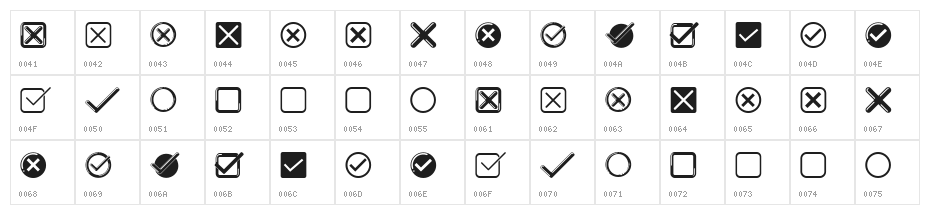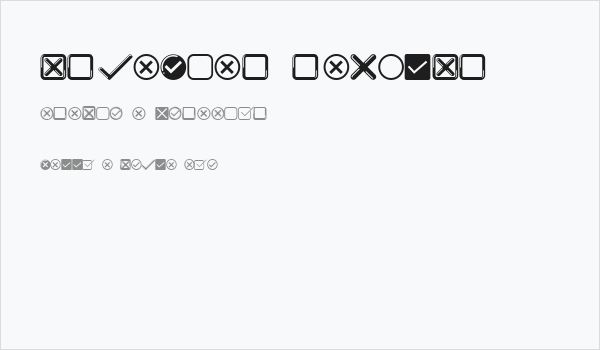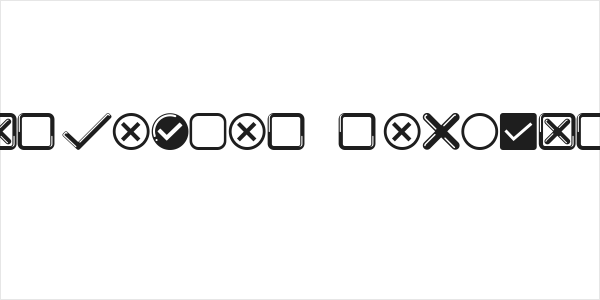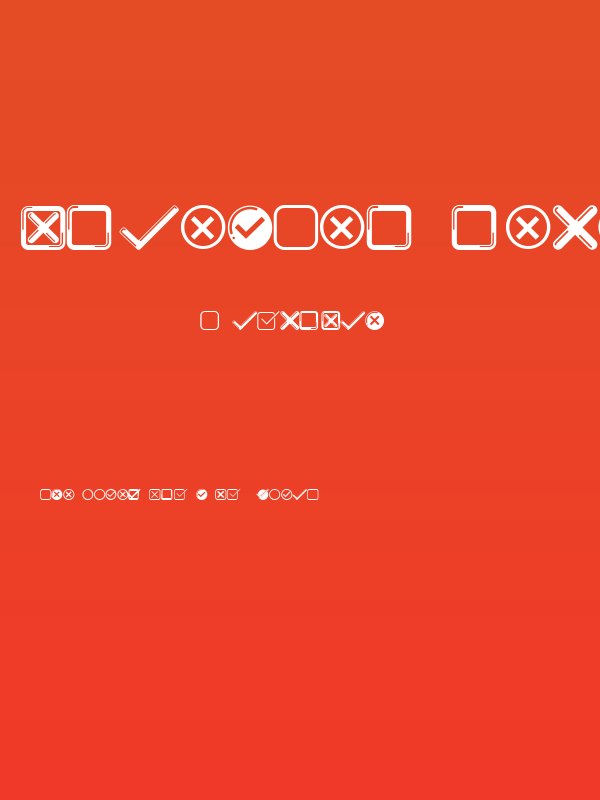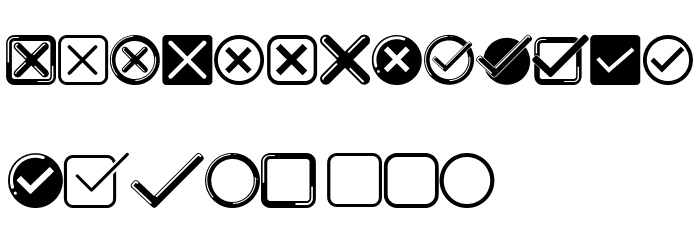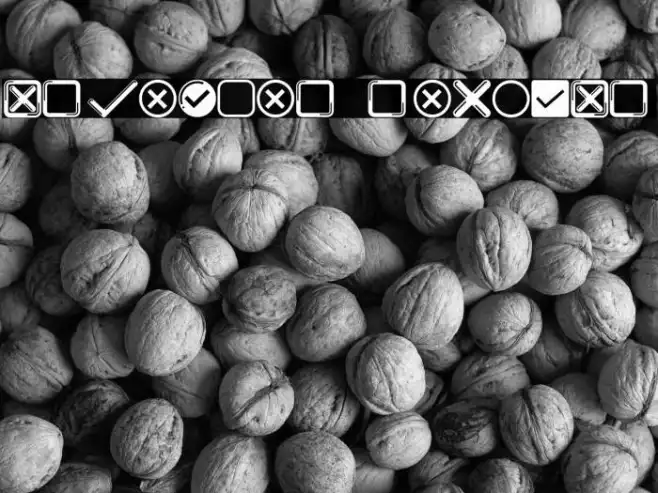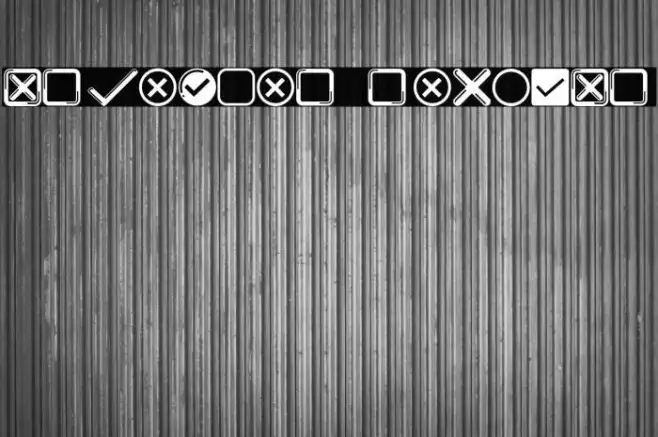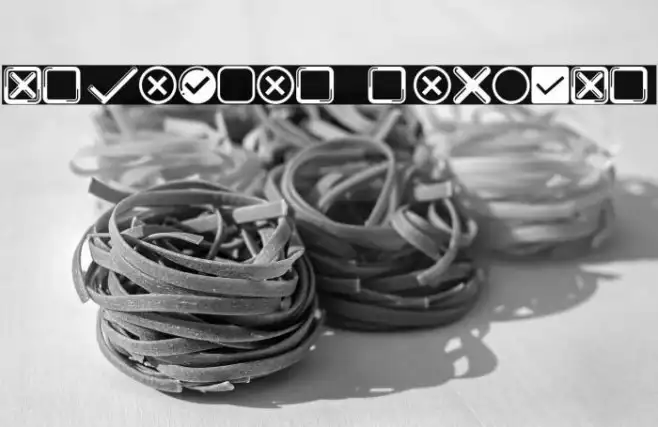
Arpenter Regular Font
Arpenter Regular Description
A collection of bold, geometric icons featuring check marks, X marks, and empty shapes in both circular and square outlines, with high contrast between filled and outlined elements.
| Use Case | Icons, UI elements, infographics |
| Proposed Projects | User interface elements, checklists, to-do apps, voting systems, infographics. |